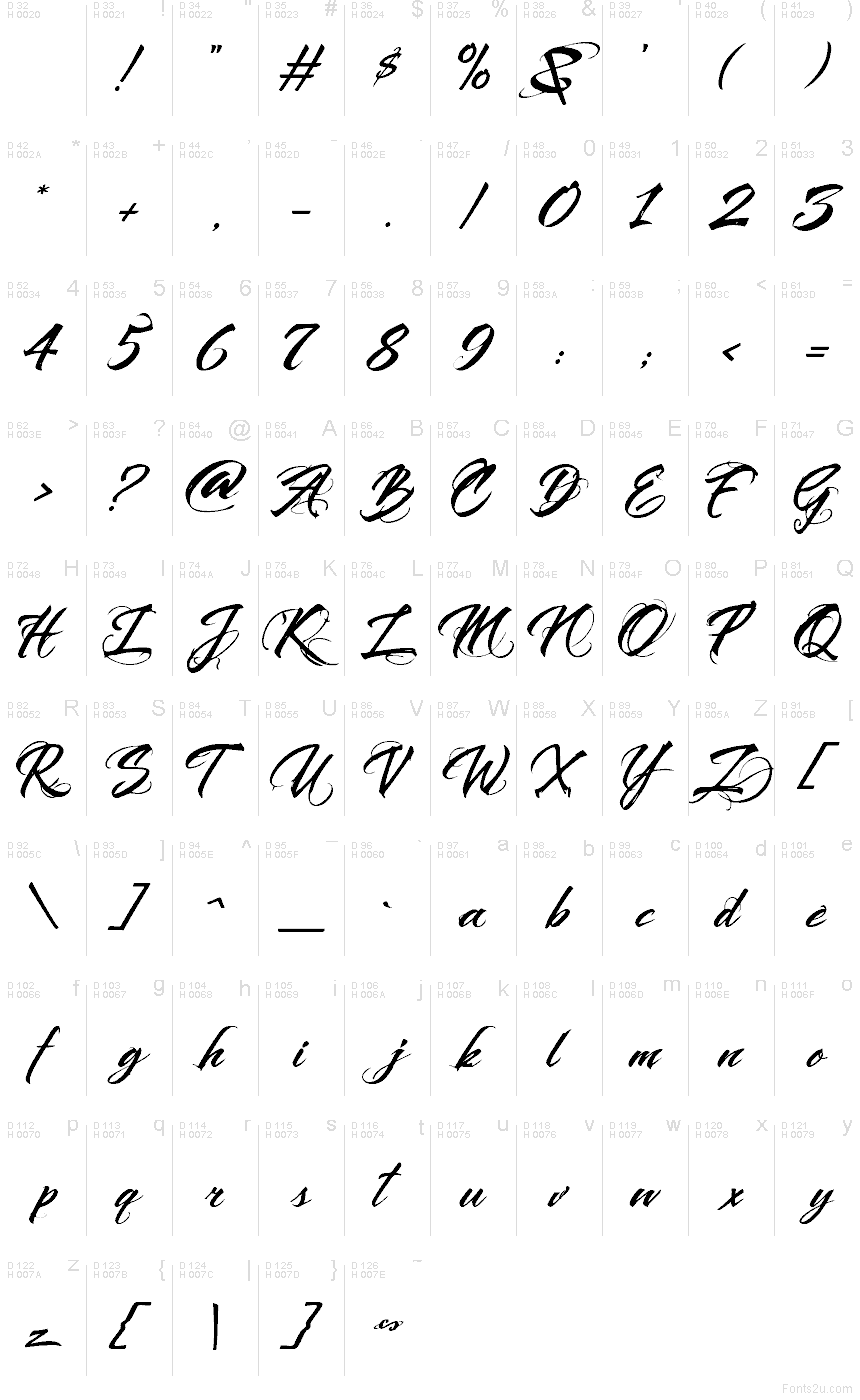
Black Rose Studio font by BlackFridayFont FMF is a free calligraphy typeface that feels like it’s been painted in one confident sweep. Its leaning, swift strokes and slightly rough, inky texture give every word a sense of motion-romantic, but with a touch of drama. The letters connect in smooth ribbons, so names, short phrases, and logos read as a single flowing gesture rather than stiff, separate characters.
Using Black Rose Studio, you can give instant elegance to wedding invitations, beauty or fashion branding, boutique packaging, book covers, album art, and social media headers. This free font shines on large titles where its sweeping forms can breathe, then pairs easily with a clean sans serif for body text to keep layouts balanced and readable.